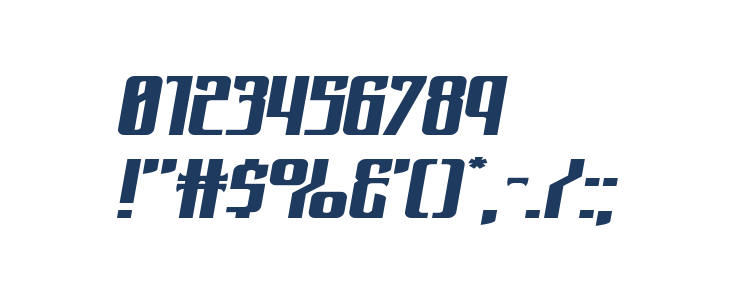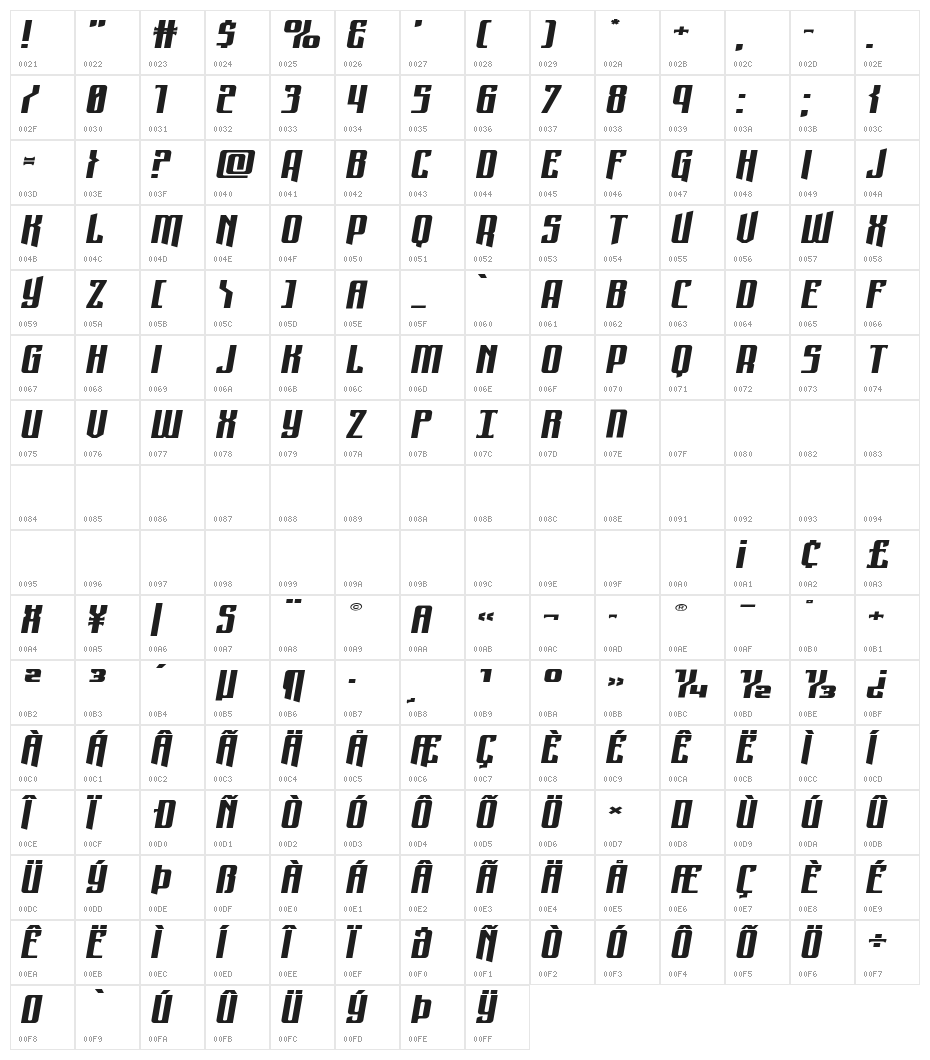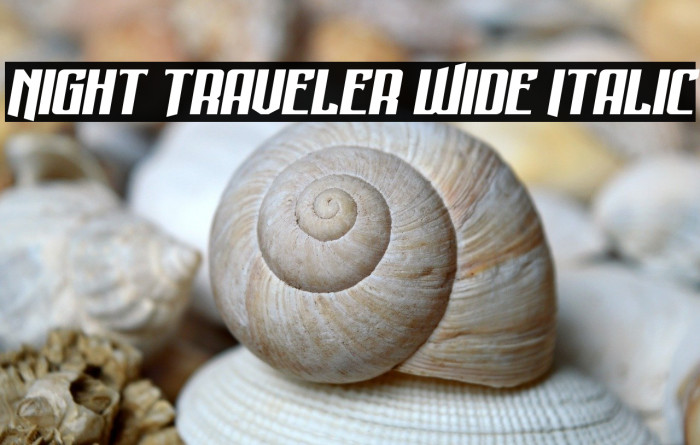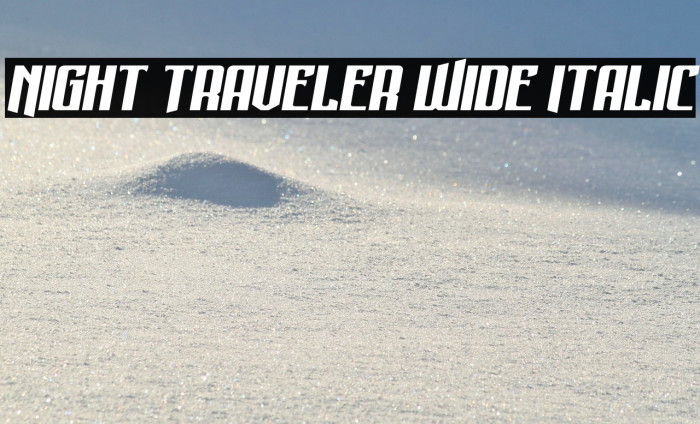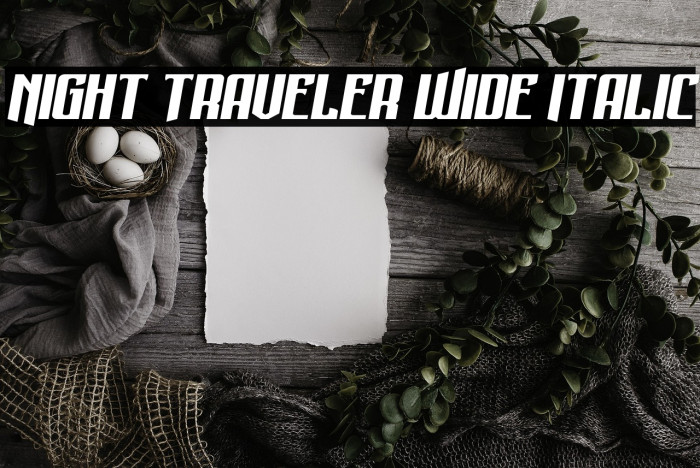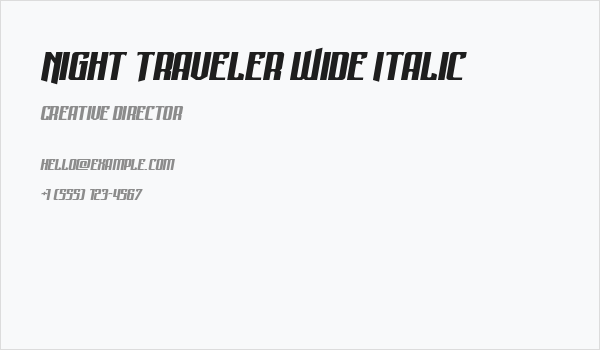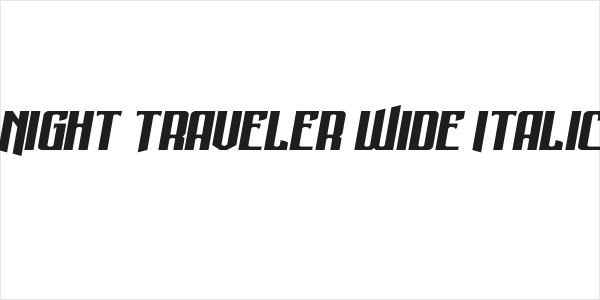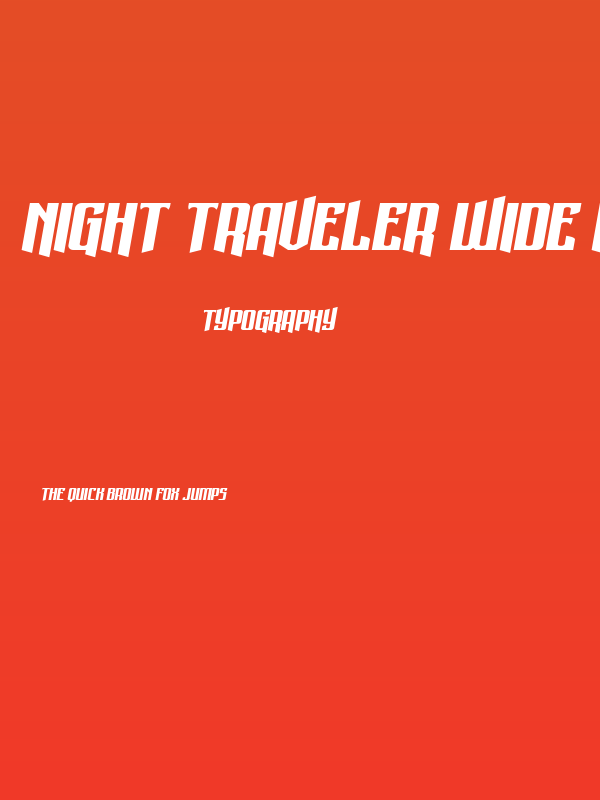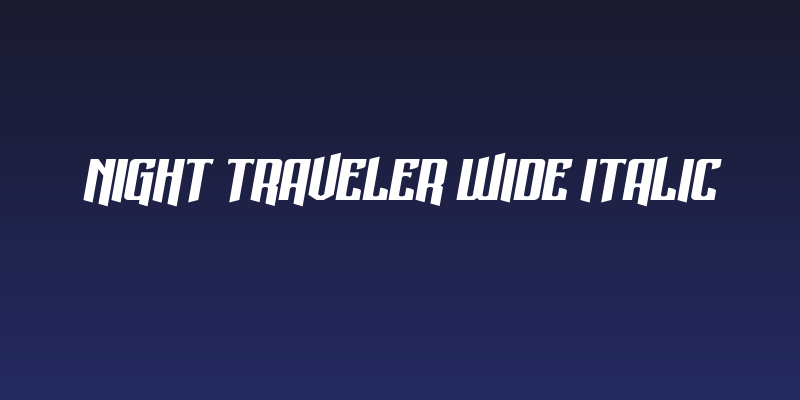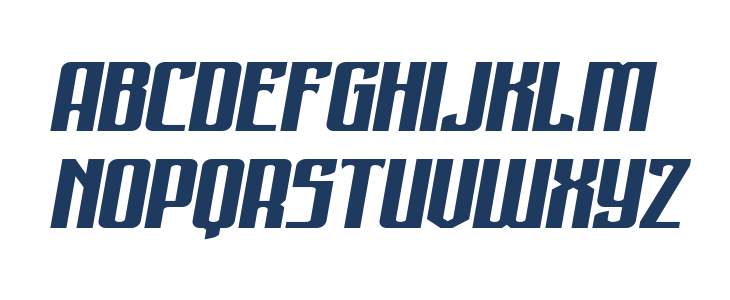
Night Traveler Wide Italic Font
Night Traveler Wide Italic Description
This font features a bold and dynamic style with a wide, italicized form that conveys a sense of movement and energy. The characters are sharply angled, giving them a modern and edgy appearance. The uppercase letters are particularly striking, with a strong presence that commands attention. The numbers and special characters maintain the same boldness and angularity, ensuring consistency throughout the typeface. The overall design is sleek and contemporary, making it suitable for projects that require a strong visual impact.
| Proposed Projects | Ideal for sports branding, action movie posters, dynamic advertisements, and modern logo designs. |